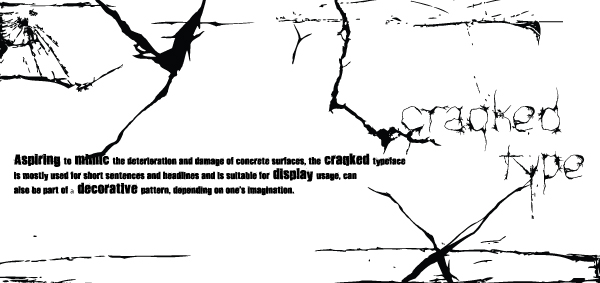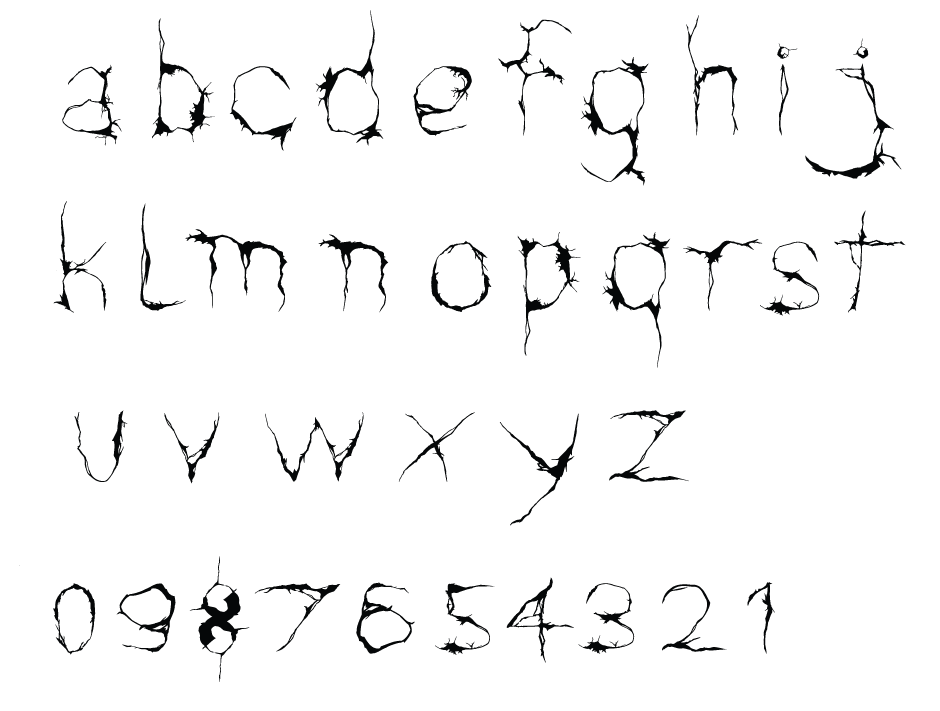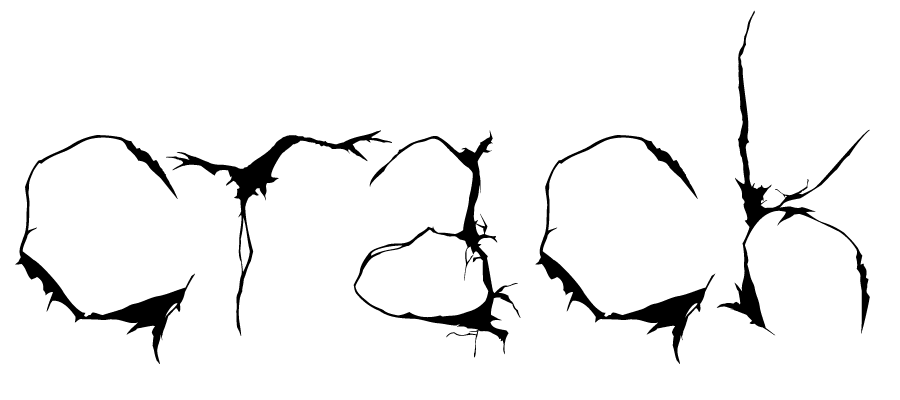
crack
by Eric Massoud
WHEN 2010
WHERE Beirut
WHAT The font 'crack' is inspired by the surfaces of buildings in Beirut.
WHO Eric Massoud
WHAT The font 'crack' is inspired by the surfaces of buildings in Beirut. The font 'crack' is inspired by the surfaces of buildings in Beirut. The font 'crack' is inspired by the surfaces of buildings in Beirut. The font 'crack' is inspired by the surfaces of buildings in Beirut. The font 'crack' is inspired by the surfaces of buildings in Beirut.